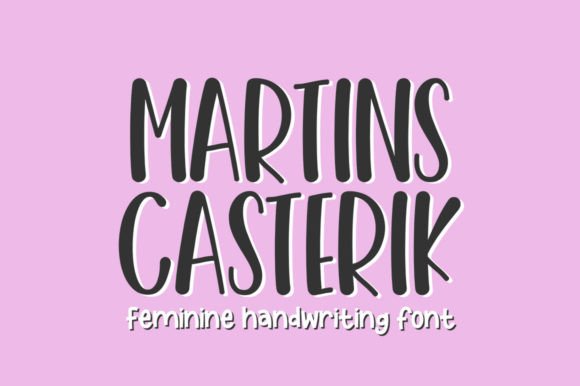
Prepare to be swept off your feet by Martins Casterik Font, a stunning display font poised to transform your creative vision into a breathtaking reality. Its enchanting handwriting style, imbued with a touch of playful sweetness and a dash of flourishing flair, will leave you in awe.
Unleash the boundless potential of Martins Casterik, a font family tailored to ignite your imagination. With its captivating charm, it's the perfect choice for a myriad of design projects, empowering you to craft captivating branding materials that leave an enduring impression.
Harness the elegance of Martins Casterik to elevate your social media presence, captivating your audience with posts and stories that exude sophistication and style. Let your words dance across the screen, adorned with the grace and finesse of this remarkable font.
Embrace the versatility of Martins Casterik for your heartfelt messages and profound quotes. Its delicate strokes and flowing lines add a layer of emotional depth, allowing your words to resonate with your readers on a deeper level.
With Martins Casterik, your invitations will blossom into works of art, imbued with a touch of timeless elegance. Whether it's a wedding, a birthday, or a special occasion, this font will transform your invitations into treasured keepsakes.
Envision your business cards adorned with the refined beauty of Martins Casterik. Its distinct character will set you apart from the crowd, leaving a lasting impression on potential clients and collaborators alike.
Step into the realm of cinematic storytelling with Martins Casterik, a font that will transport your movie covers to new heights of visual artistry. Its captivating charm will draw viewers in, promising an unforgettable cinematic experience.
Let Martins Casterik be your secret weapon for creating designs that exude a sense of timeless elegance. Its versatility and charm will elevate your projects, leaving a lasting impression on your audience.